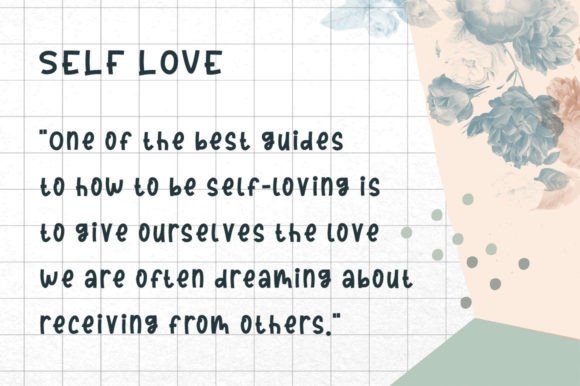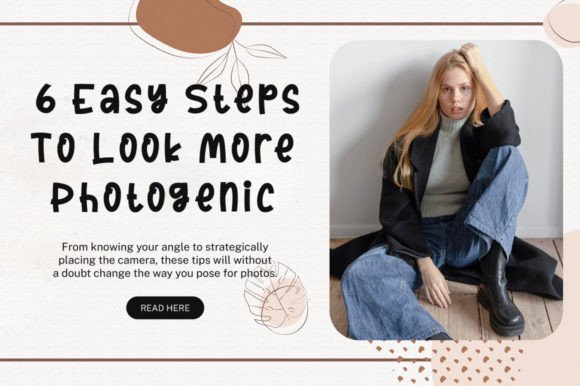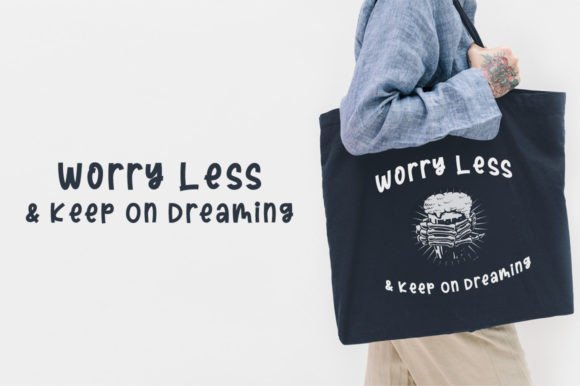
Introduction to Heiley Font
Heiley is a cute and casual handwritten font.
Dainty and joyful, this font will be ideal for writing wedding invitations, cards, or any other design that may need a romantic, personalized touch .
Heiley Font offers exceptional quality and versatility, making it a valuable addition to your design toolkit. Whether you’re creating for personal projects or commercial use, Heiley Font delivers professional results.